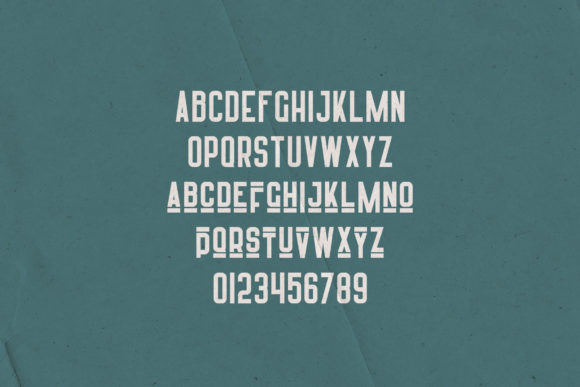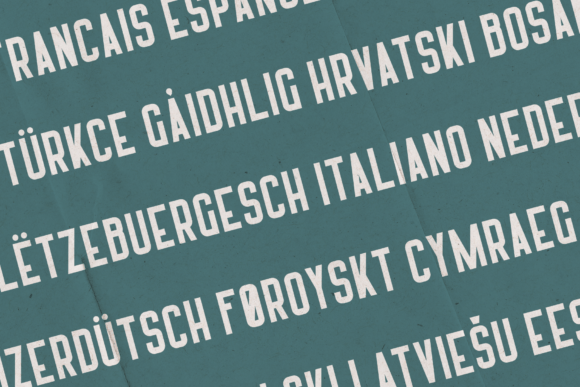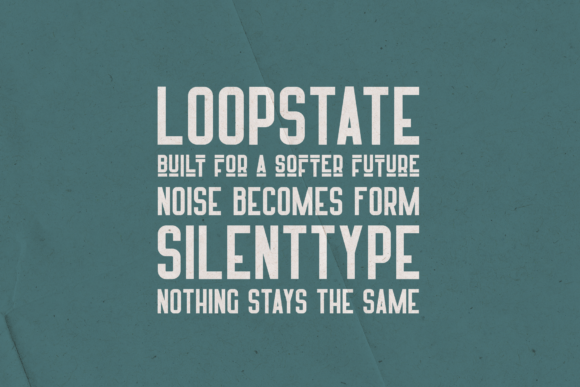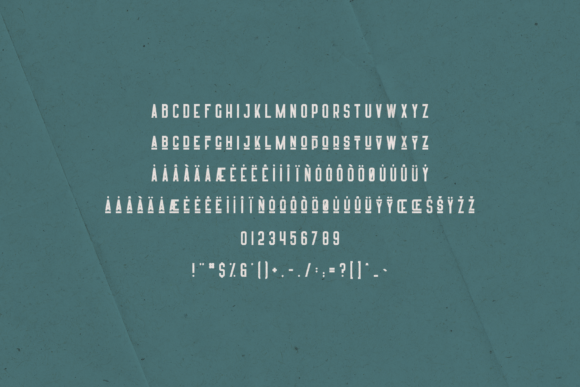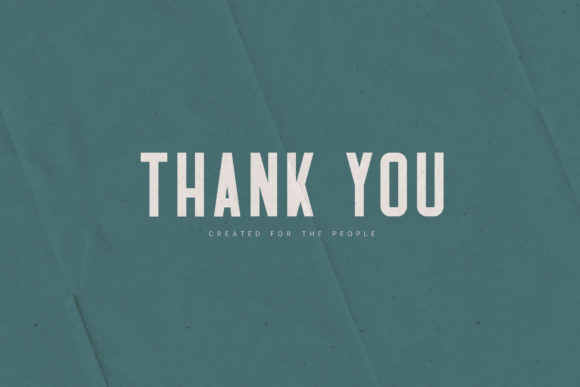
Introducing Harrison Font: A Bold and Creative Display Typeface
In the world of typography, a well-designed font can make all the difference in creating a lasting impression. For designers and crafters looking for a bold and creative display font, Harrison is an excellent choice. With its strong industrial character and subtle vintage texture, Harrison is perfect for standout typography in various design projects.
Key Features of Harrison Font
Harrison is built with tall proportions, condensed shapes, and confident letterforms, delivering a powerful visual presence while maintaining excellent readability. Its slightly distressed, retro-inspired finish adds warmth and personality, making it ideal for designs that need character without sacrificing clarity.
Harrison’s design characteristics make it a versatile font suitable for various applications. Some of its notable features include:
- Tall proportions: Giving it a strong and confident presence
- Condensed shapes: Allowing for a more compact and impactful design
- Confident letterforms: Ensuring excellent readability even at larger font sizes
- Slightly distressed, retro-inspired finish: Adding warmth and personality to the font
Use Cases for Harrison Font
Harrison is designed for standout typography, making it ideal for various design projects, including:
- Posters: Create eye-catching posters with Harrison’s bold and confident presence
- Headlines: Use Harrison to create attention-grabbing headlines that demand attention
- Branding: Establish a strong brand identity with Harrison’s unique character
- Packaging: Add a touch of personality to your packaging designs with Harrison’s retro-inspired finish
- Album covers: Create striking album covers that showcase Harrison’s bold and creative design
- Apparel: Use Harrison to create visually appealing apparel designs that make a statement
- Editorial layouts: Add a touch of sophistication to your editorial layouts with Harrison’s confident and strong presence
- Impactful graphic design projects: Use Harrison to create bold and creative designs that leave a lasting impression
Language Support
Harrison includes extensive multilingual support, making it an excellent choice for designers working on international projects. The font includes uppercase and lowercase letters, numerals, punctuation, and a wide range of special characters.
Who is Harrison Font for?
Harrison is made for designers who want bold expression, timeless strength, and creative flexibility in a modern display typeface. Whether you’re a professional designer or a crafty enthusiast, Harrison is an excellent choice for anyone looking to add a touch of personality and sophistication to their designs.
In conclusion, Harrison font is a bold and creative display typeface that offers a unique blend of industrial character and vintage texture. With its tall proportions, condensed shapes, and confident letterforms, Harrison delivers a powerful visual presence while maintaining excellent readability. Its versatility and extensive language support make it an excellent choice for various design projects, from posters and headlines to branding and packaging. If you’re looking for a font that offers bold expression, timeless strength, and creative flexibility, Harrison is an excellent choice.